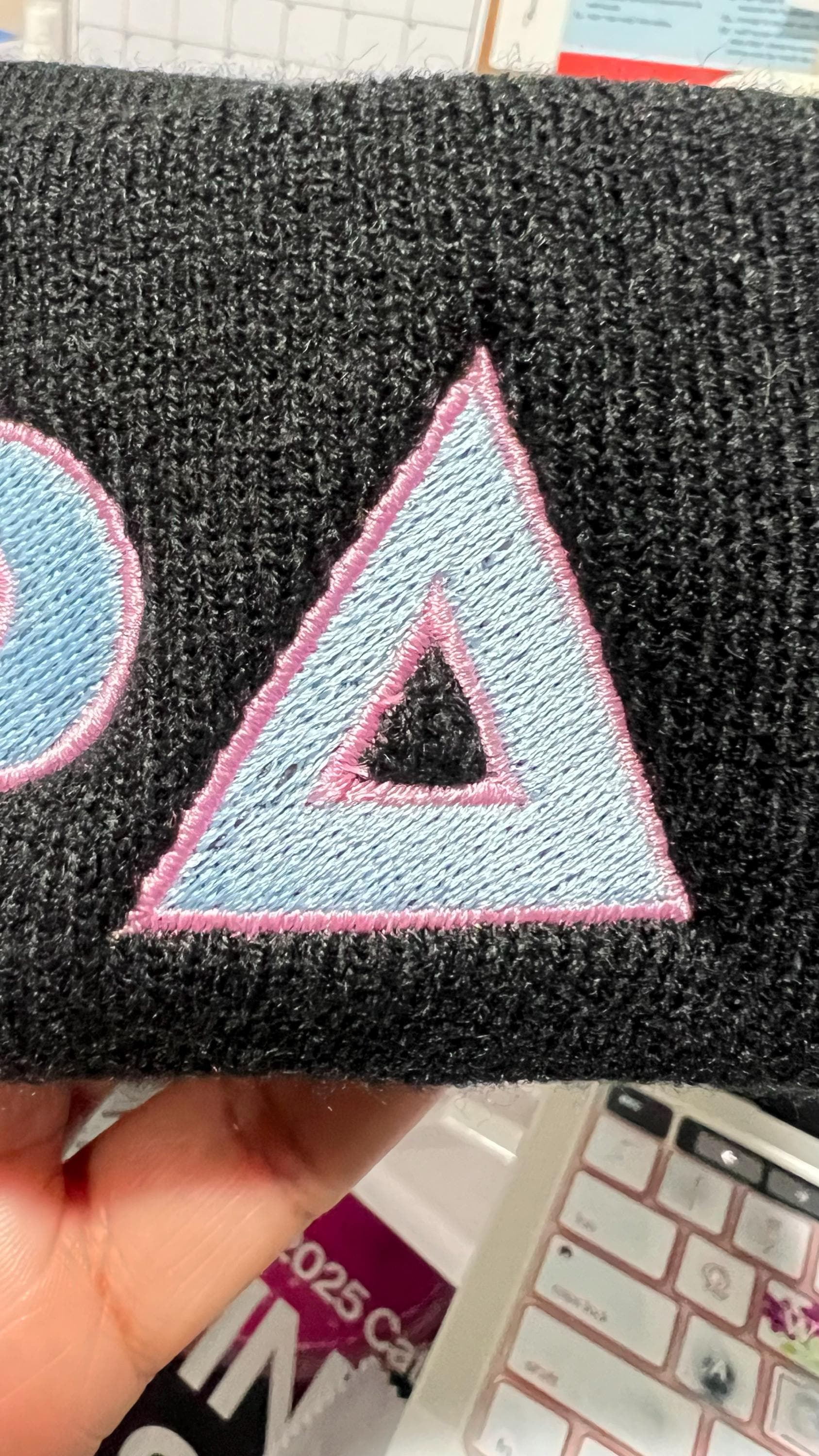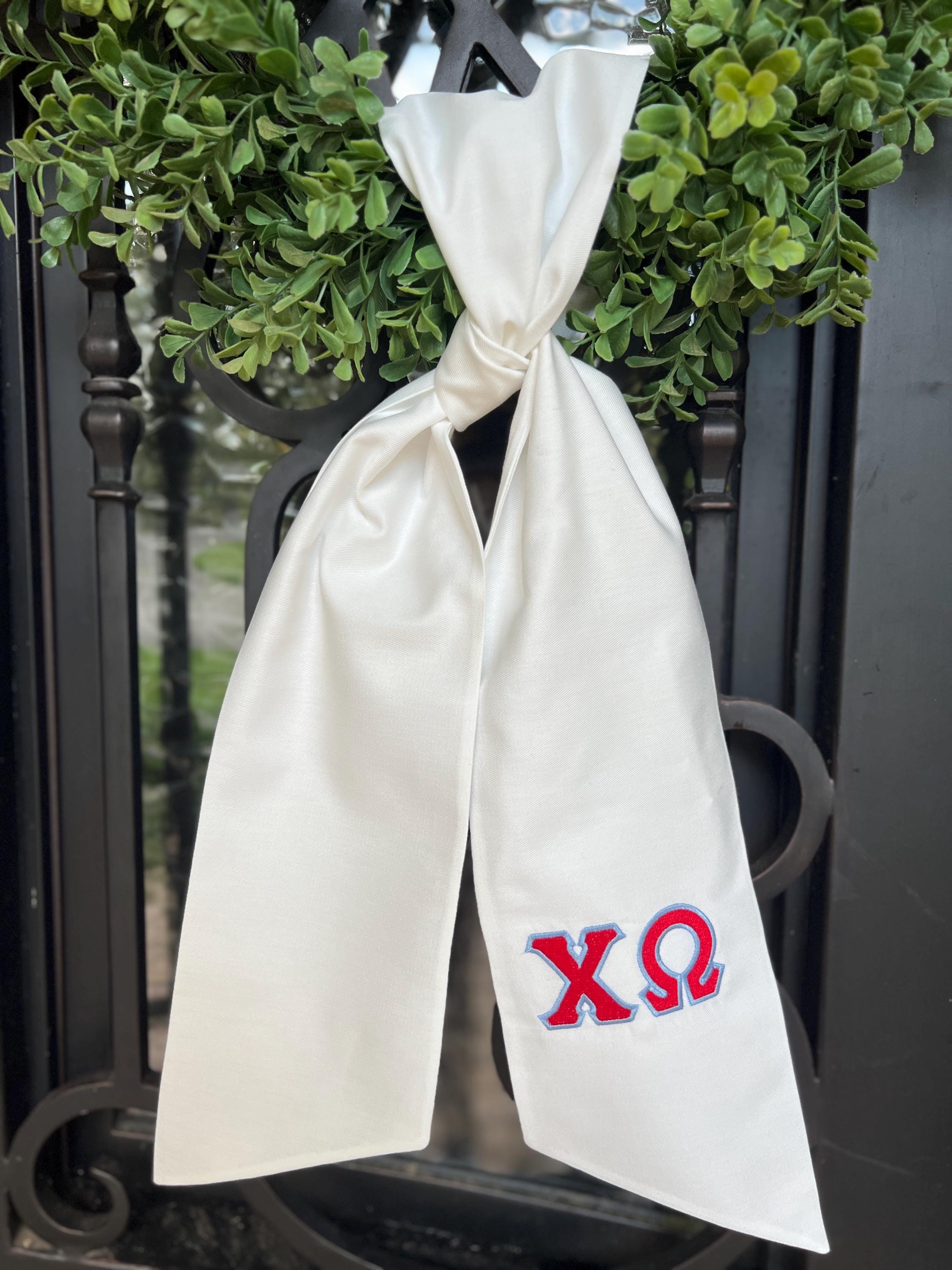
Greek font, alphabet, ABC, 2 colors Greek font sororities fill stitch Font, outline fill stitch font machine embroidery design, BX included
Font is fill stitched and has contrast (second color) finish outline